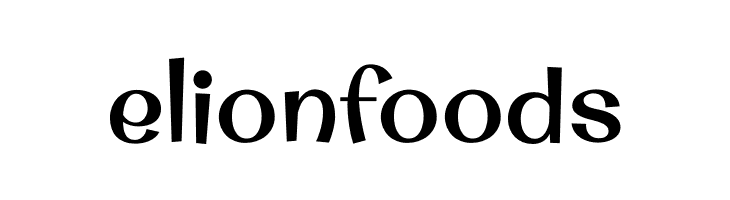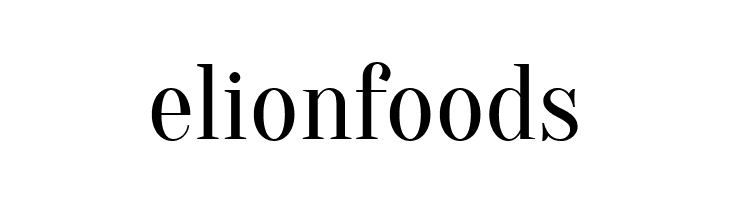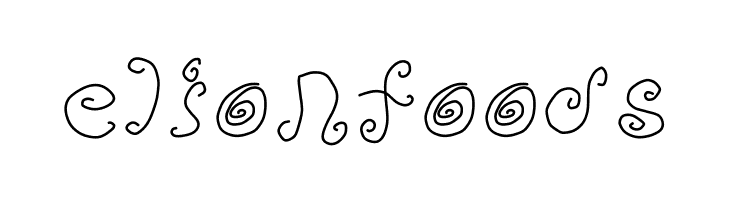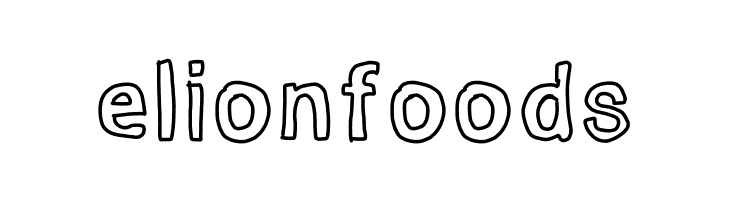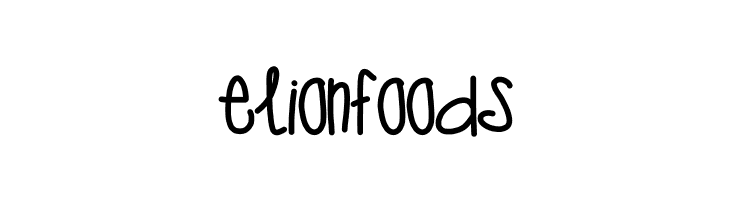
A playful, casual handwritten font with smooth, consistent strokes.
A classic serif font with high contrast and elegant strokes.
A lively, handwritten-style font with smooth, fluid strokes and a playful appearance.
A playful, handwritten font with smooth curves and a casual style.
A cursive, italicized font with a dynamic and flowing style.
A clean, modern sans-serif font with excellent readability and balance.
A playful and dynamic font with bold, irregular letterforms and a whimsical style.
A playful, modern font with geometric and cursive elements.